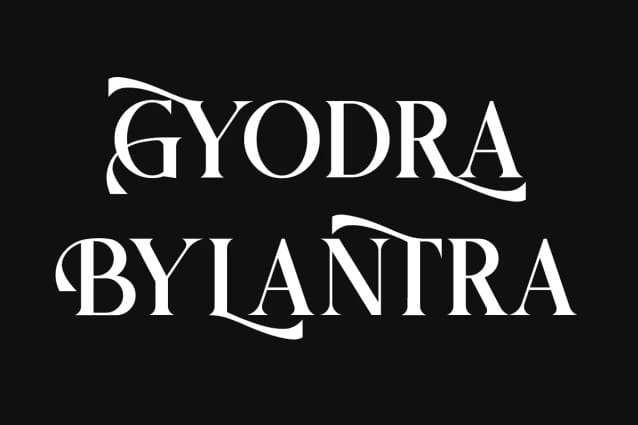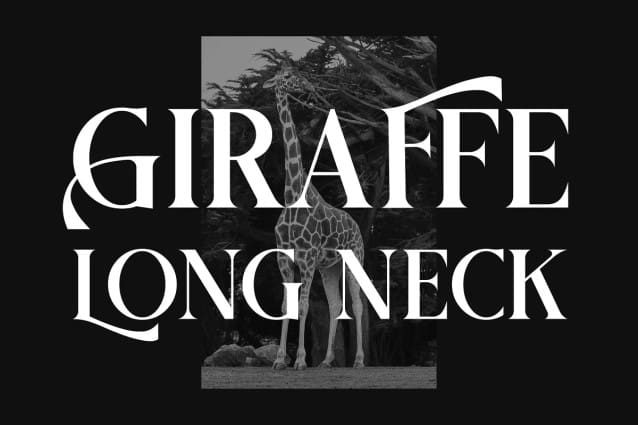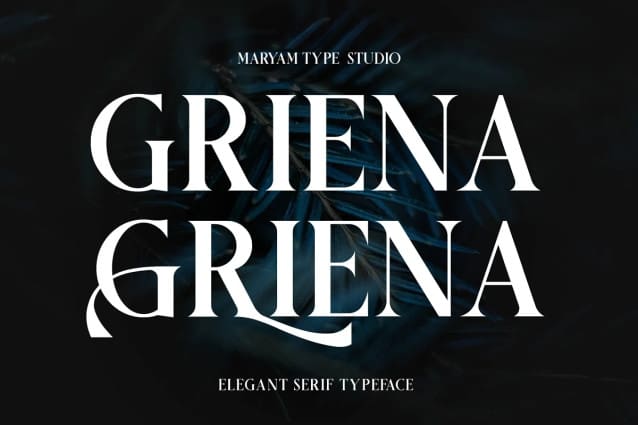
Griena Font
Griena Font – Elegant Serif Font, created by Maryamtype Studio, a Elegant serif typeface that has a unique modern style & look. This typeface is perfect for elegant & luxurious logos, book or movie title designs, fashion brands, magazines, clothing, fonts, quotes and more.